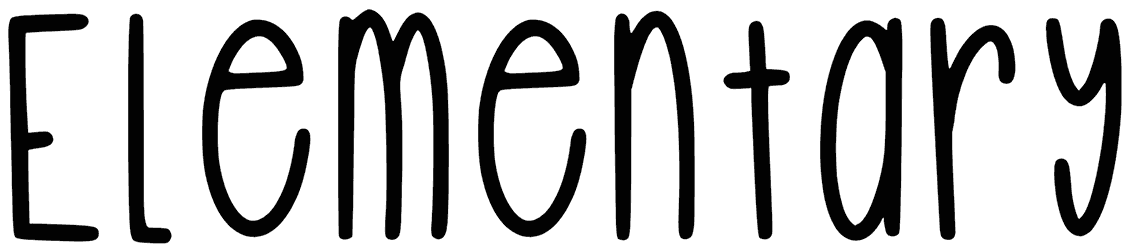
Elementary Font
Bring a casual and friendly vibe to your layouts with this handwritten font and knock over your clients with a feather. The Elementary font is suitable for different types of projects like flyers, posters, books, or any…
Bring a casual and friendly vibe to your layouts with this handwritten font and knock over your clients with a feather. The Elementary font is suitable for different types of projects like flyers, posters, books, or any digital and printed layouts. Give it a shot right now and see how terrific it sounds.
My first attempt at creating a font.